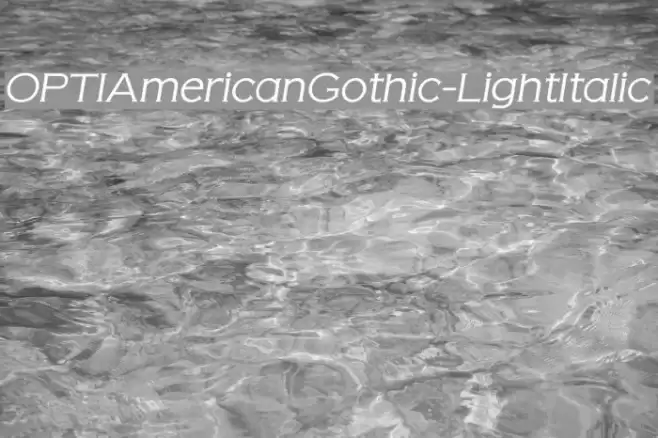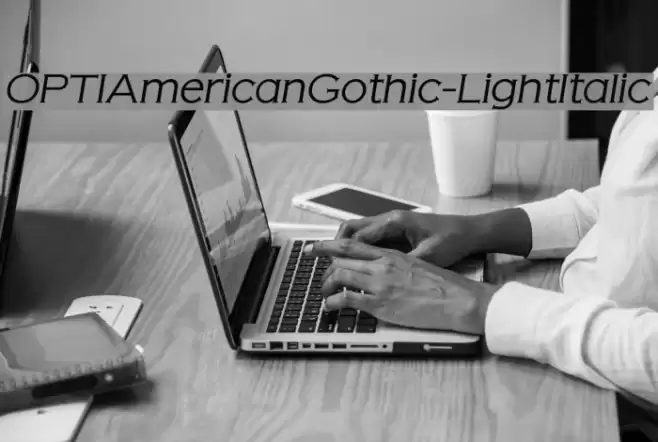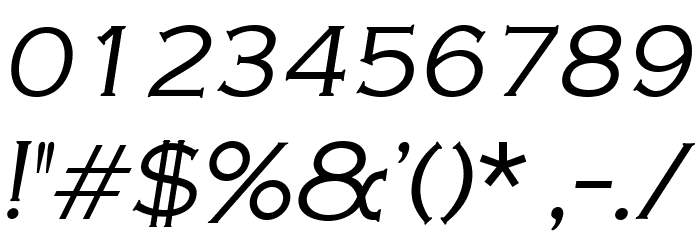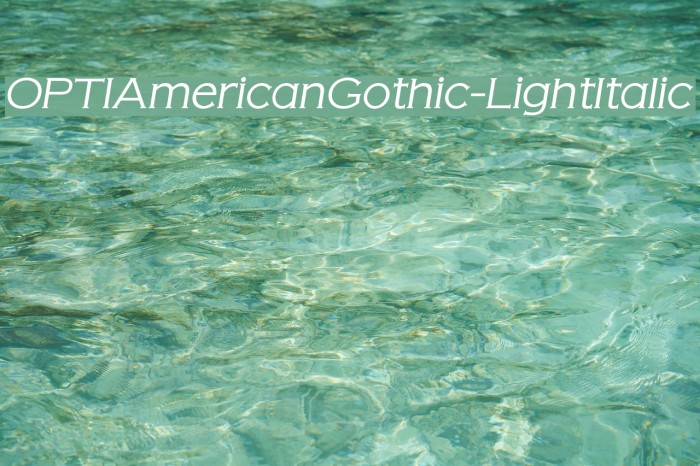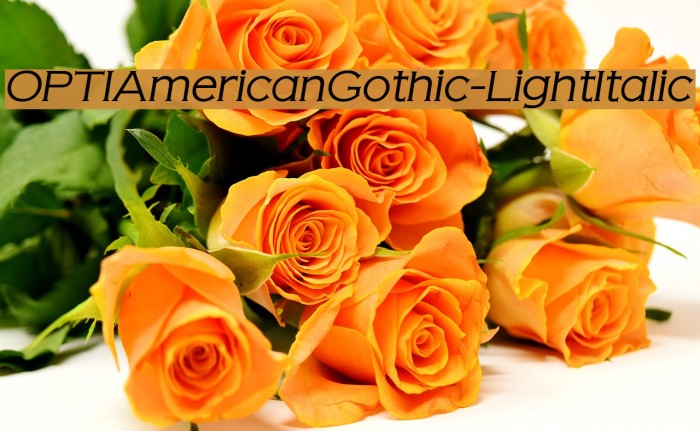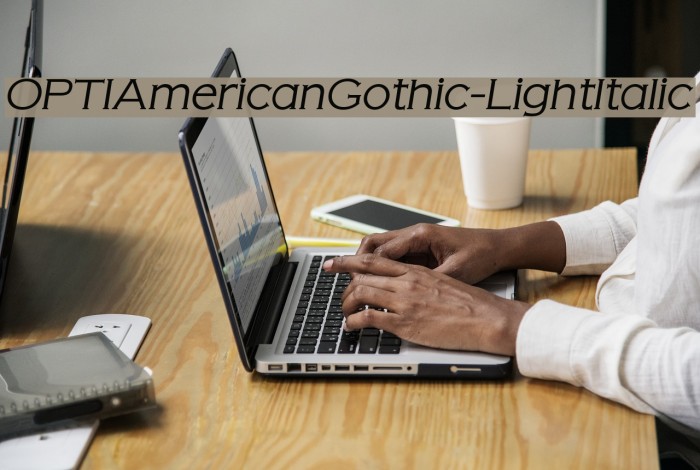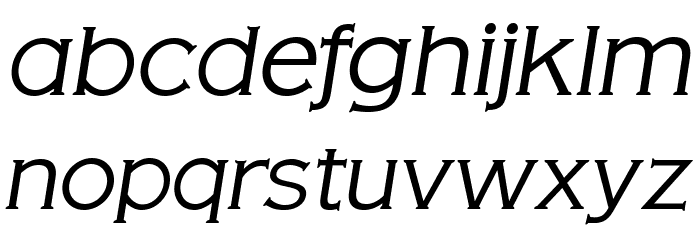
OPTIAmericanGothic-LightItalic Font
OPTIAmericanGothic-LightItalic Description
This font exhibits a sleek and modern design with a slight italic slant, giving it a dynamic and forward-moving appearance. The characters are clean and well-defined, with a consistent stroke width that maintains readability across various sizes. The uppercase and lowercase letters are proportionate, and the numerals are clear and distinct. Special characters are elegantly integrated, maintaining the overall aesthetic. The font's style is versatile, suitable for both digital and print media, offering a professional yet approachable look.
A sleek, modern italic font with clean lines and consistent stroke width from Uncategorized fonts.
- Proposed Projects: Ideal for branding, editorial design, websites, and advertising materials where a modern and professional look is desired.